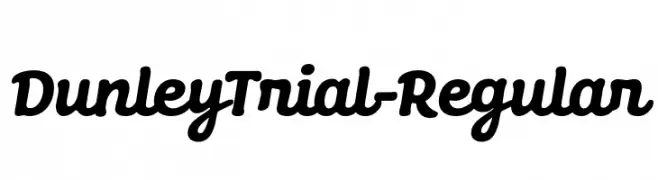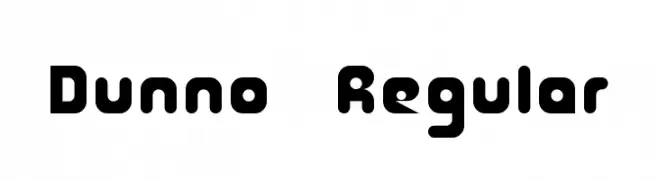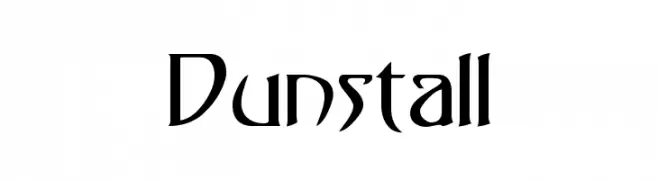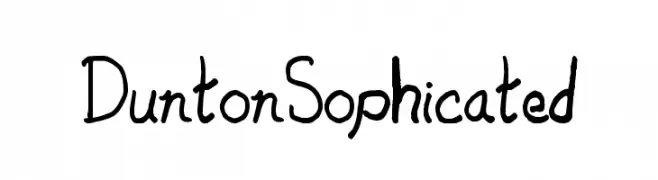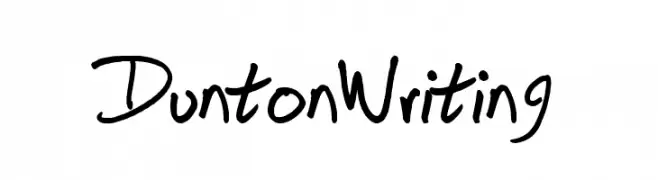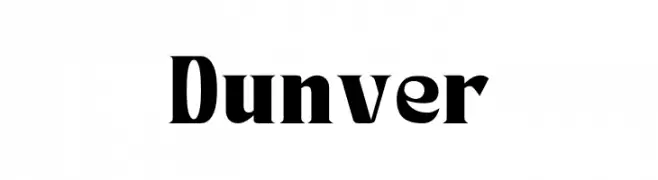
A bold, playful script font with rounded edges and smooth character flow.
( Matt Bruinooge )
A bold, rounded font with a playful and modern aesthetic.
( Roger White - web.archive.org/web/20120416090521/www.rogersfonts.org.uk/ )
A bold, gothic-inspired font with sharp, angular edges and a modern twist.
( Zach Dunton - DuntonPhoto.com )
A playful, hand-drawn font with a whimsical and artistic style.
( Zach Dunton - DuntonPhoto.com )
A dynamic, expressive handwritten font with fluid strokes and bold characters.
( Fonts by PutraCetol Studio )
A bold, high-contrast decorative font with unique curves and angles.